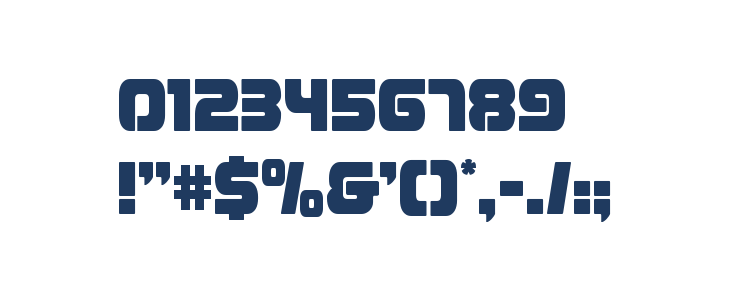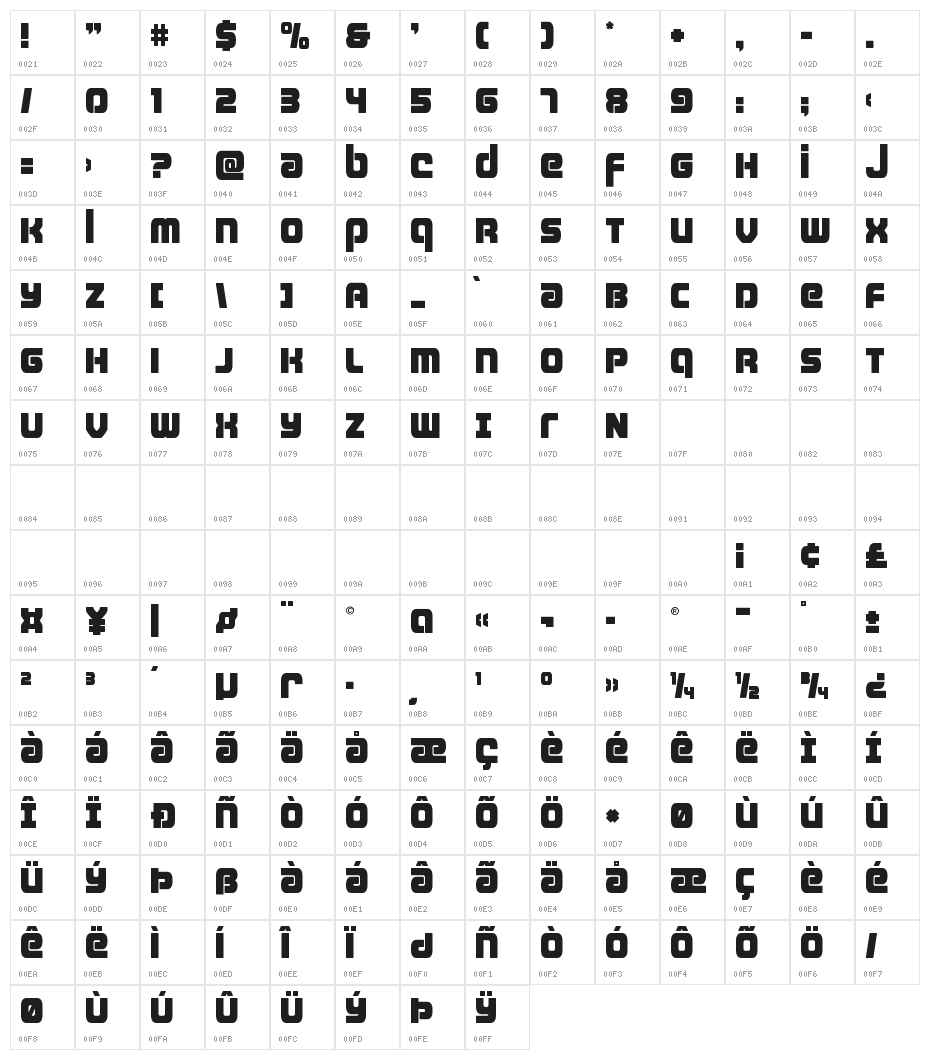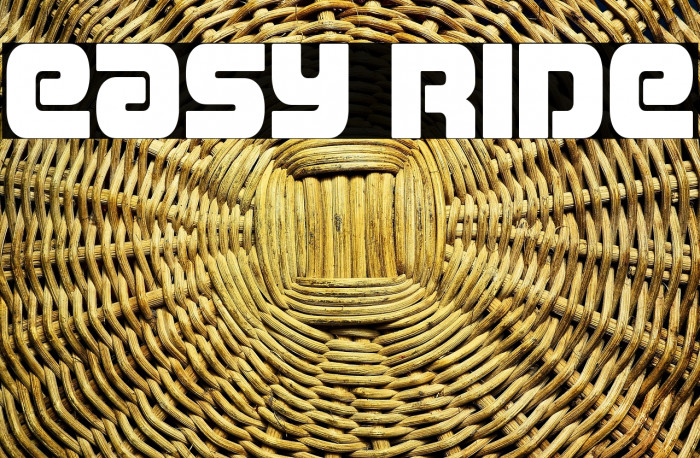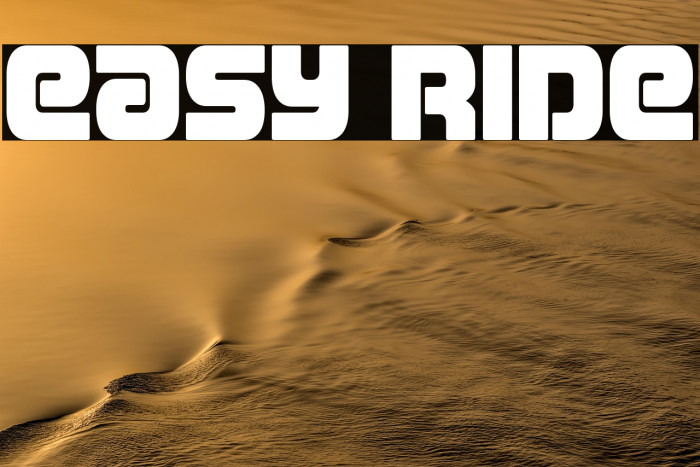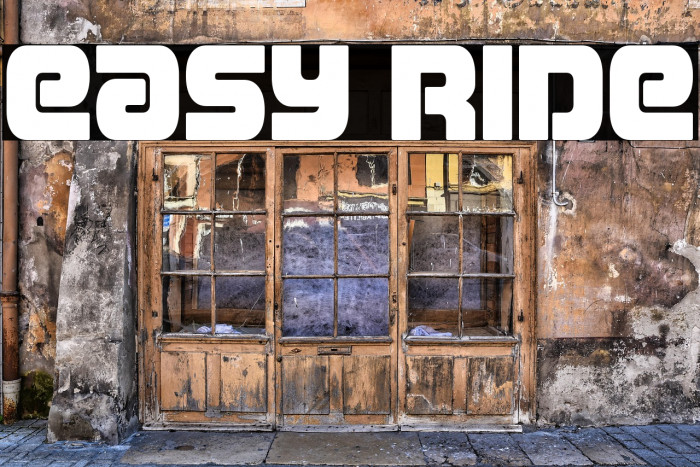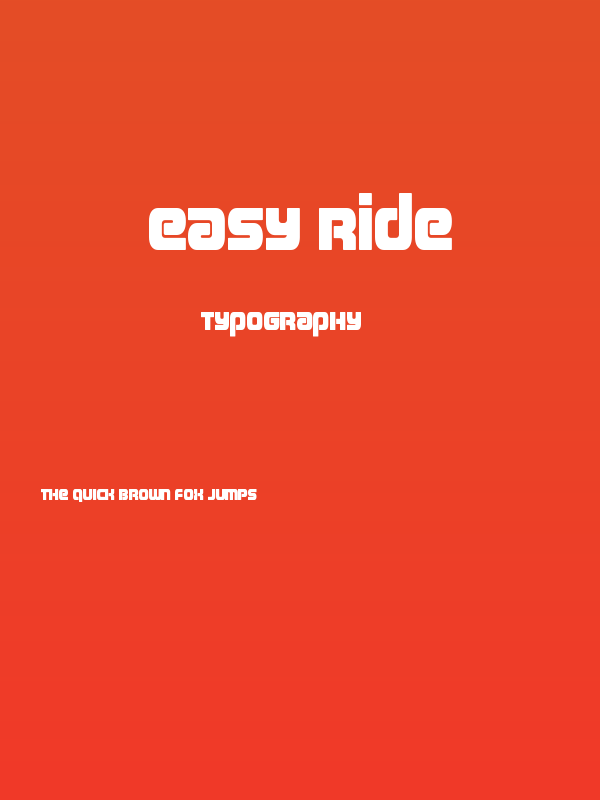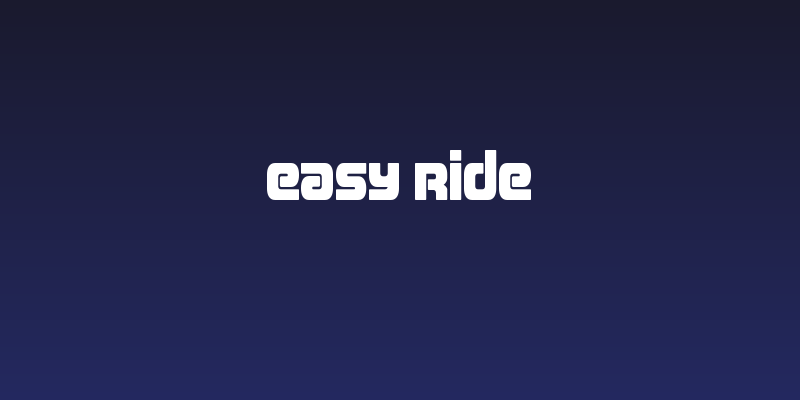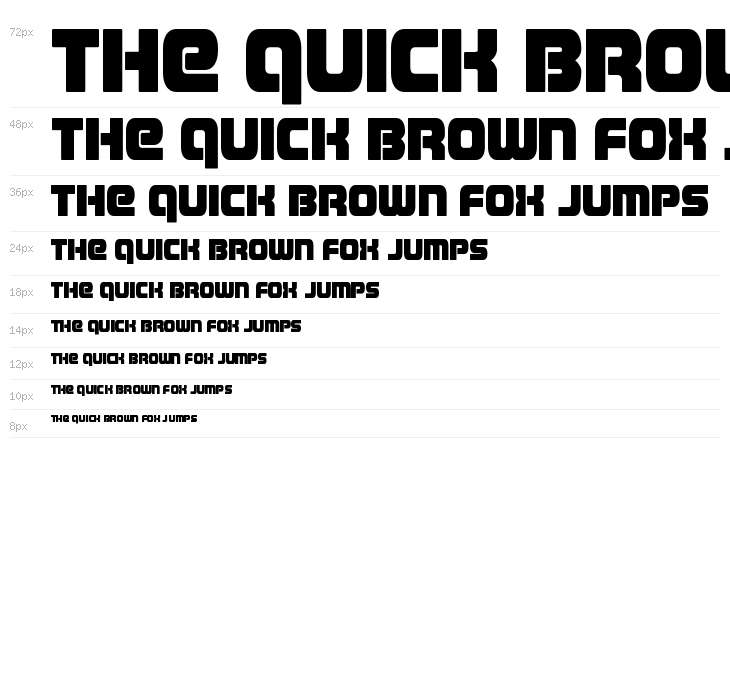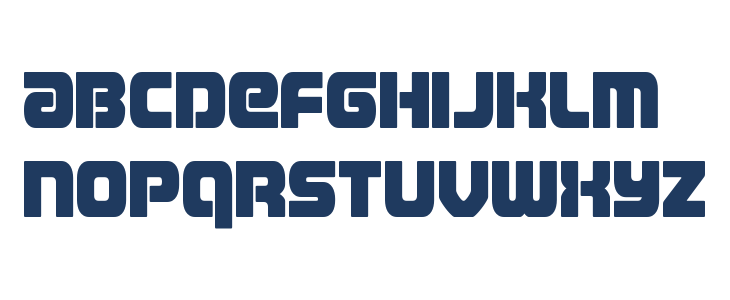
Easy Ride Font
Easy Ride Description
This font features a bold and geometric design with a strong presence. The characters are constructed with thick, uniform strokes that create a sense of solidity and impact. The rounded edges soften the overall look, adding a touch of approachability to its otherwise robust appearance. The uppercase and lowercase letters maintain a consistent style, ensuring readability and visual harmony. The numerals and special characters are designed to match the boldness of the alphabet, making them suitable for various applications. The font's modern and futuristic aesthetic makes it ideal for projects that require a strong visual statement.
| Proposed Projects | Ideal for branding, headlines, posters, and any design that requires a strong, modern look. |